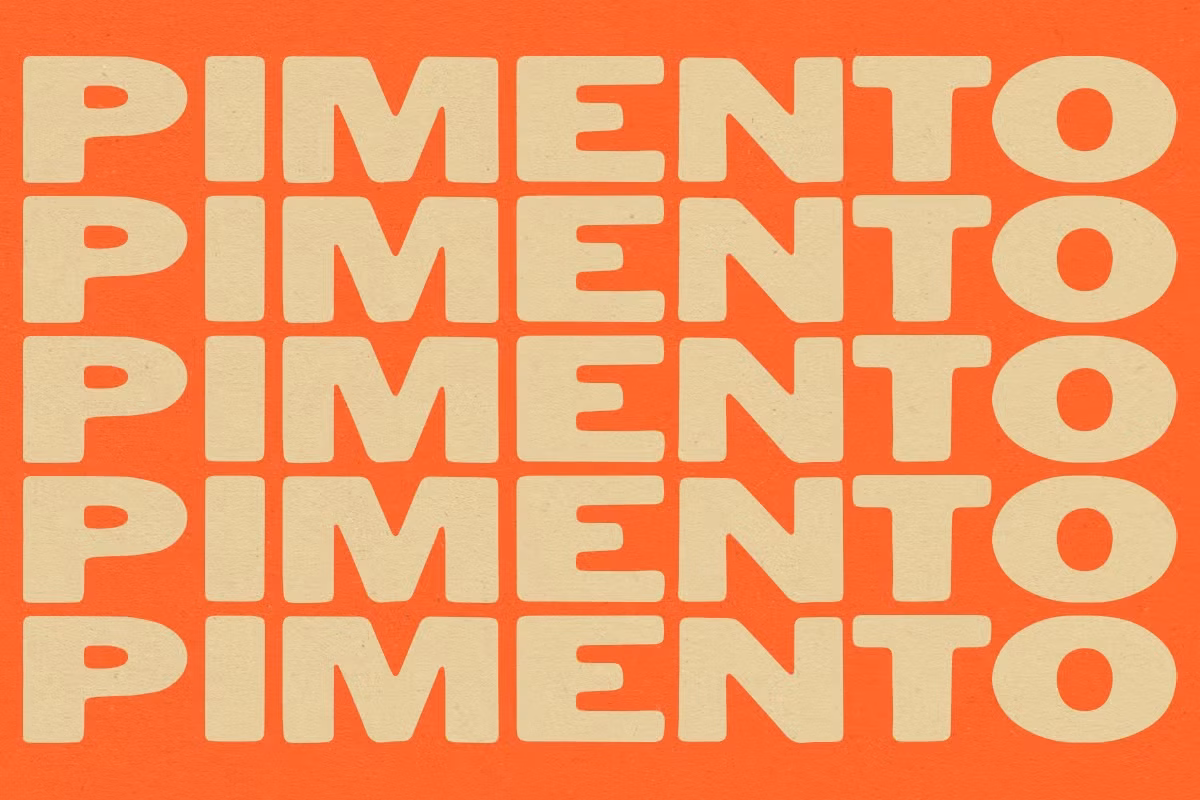
Pimento Typeface Free Download is a vibrant and quirky display font that brings a retro twist with a fresh, modern edge. Characterized by its playful curves, bold letterforms, and vintage-inspired personality, Pimento is perfect for eye-catching posters, logos, packaging, social media graphics, and creative branding that needs a bit of spice.
Designed for bold expression, Pimento Typeface Free Download captures the charm of mid-century typography with contemporary usability. Its unique shapes and cheerful tone make it ideal for brands and designers who want to stand out with a fun yet stylish look.
Whether you're crafting retro-themed merchandise, launching a quirky café brand, or designing a colorful label, Pimento offers both charm and versatility. It pairs beautifully with script or clean sans-serif fonts to create dynamic, layered compositions.